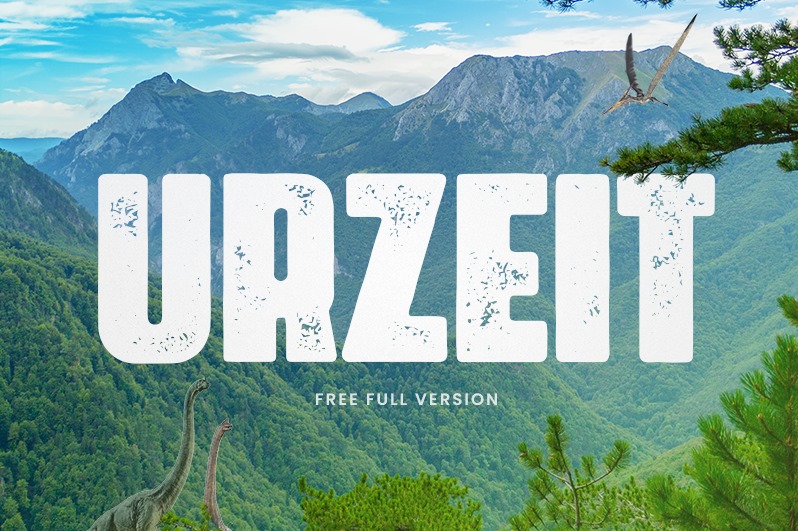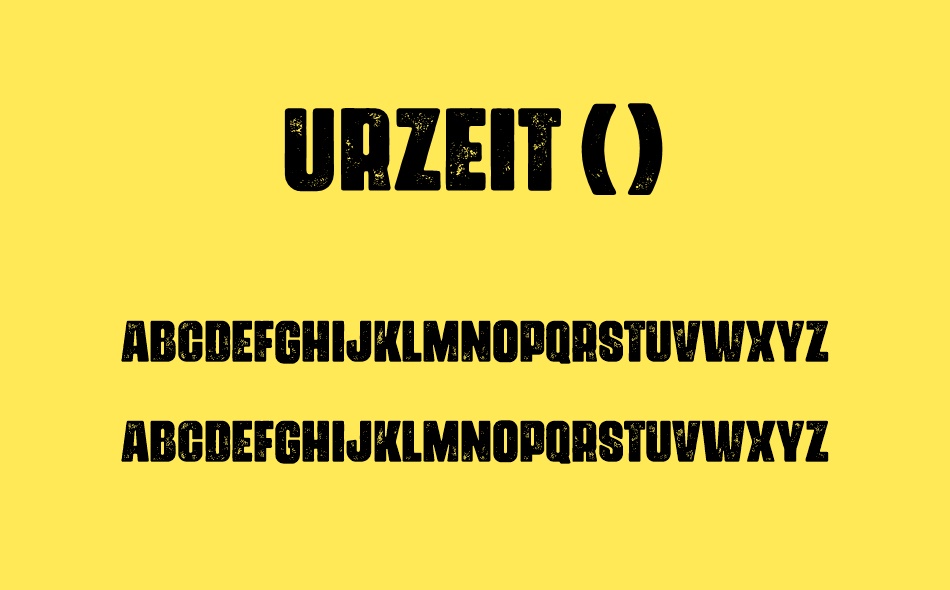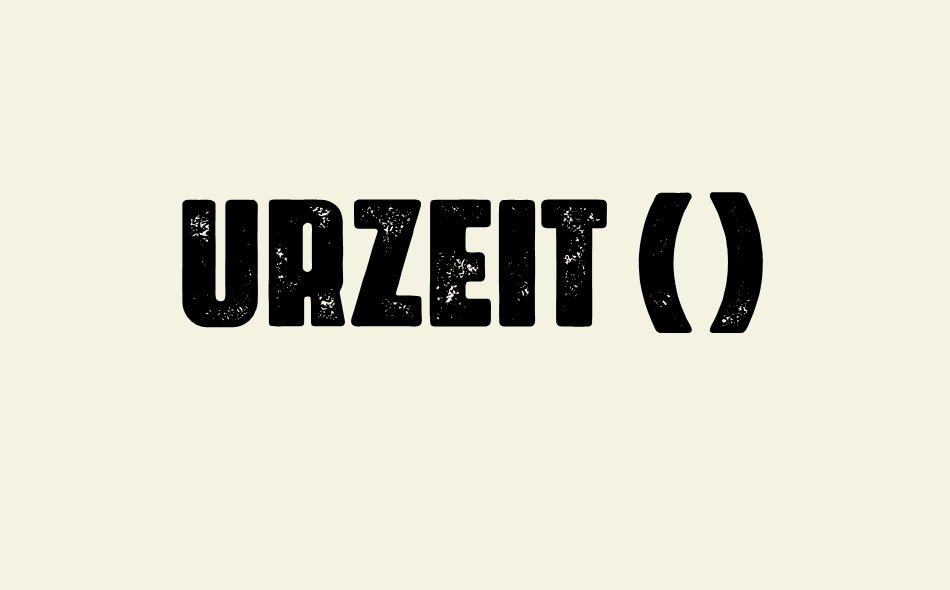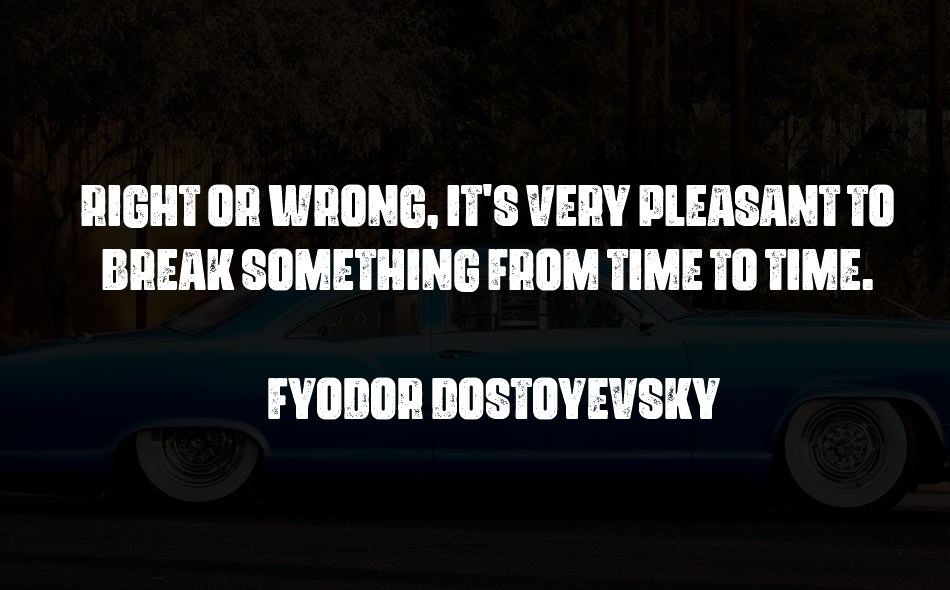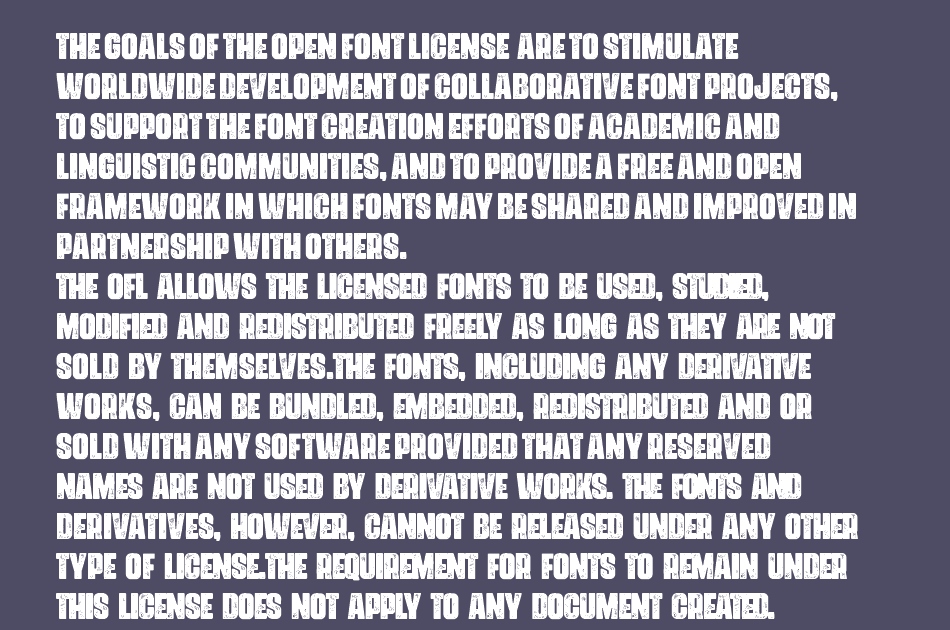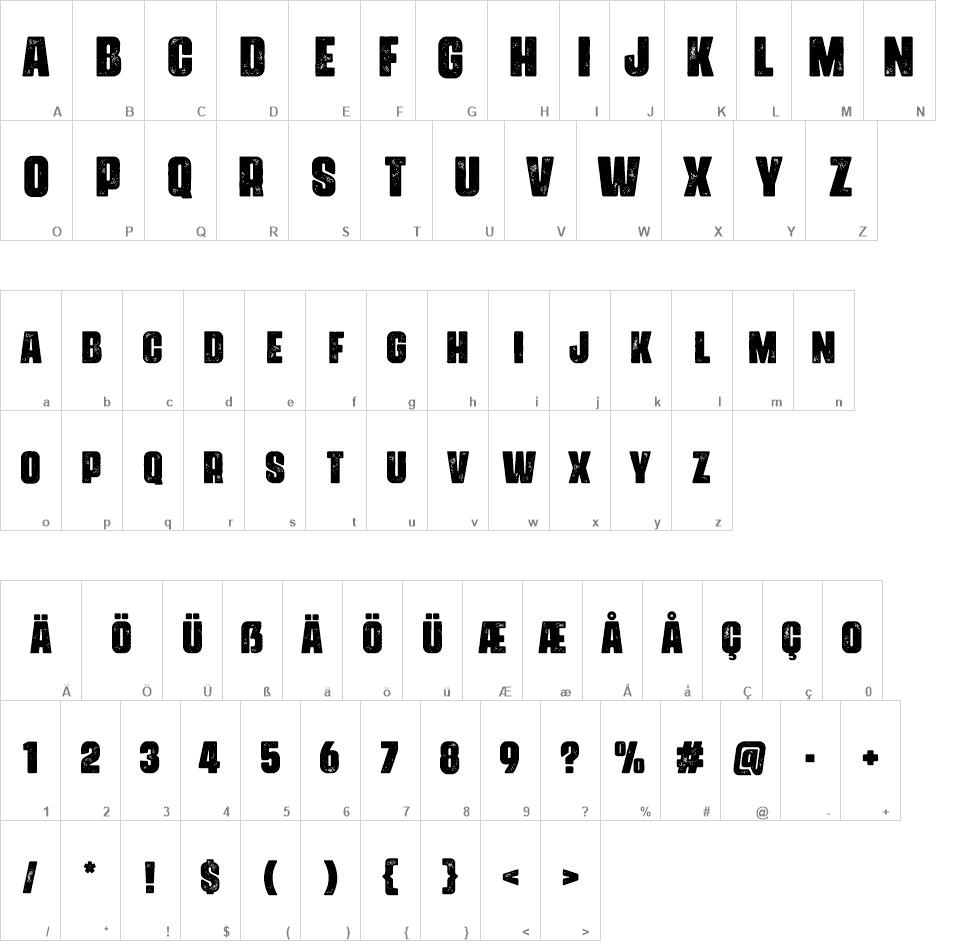
Urzeit font
Urzeit - FULL VERSION
Fun Fact: URZEIT is german for primeval. So for this font we travelled back in time and found a very antiquated and rustic version of our original font Mind the Caps, which we released some time ago.
Its original smoothness and rounded edges are now presented with a dirty, rough and vintage look, which gives the font a completely new character and the true feeling of a million year old font discovery. Just like its predecessor you can still use the font for logos, headline or bold statements and it's always an eye-catcher. And of course you can still get the clean original version @